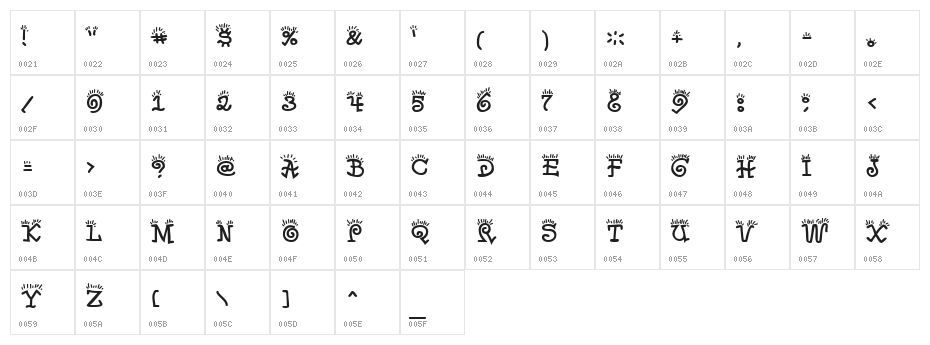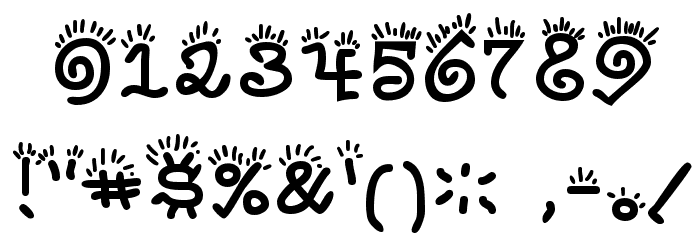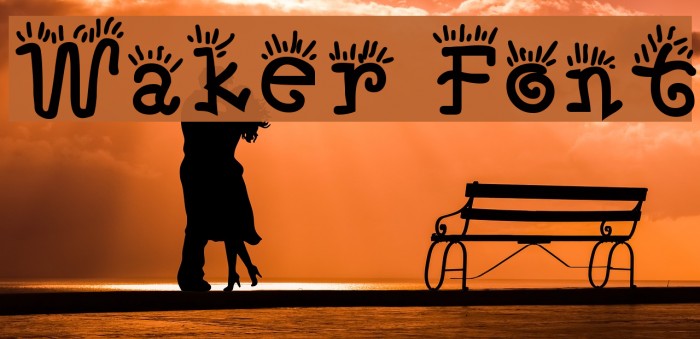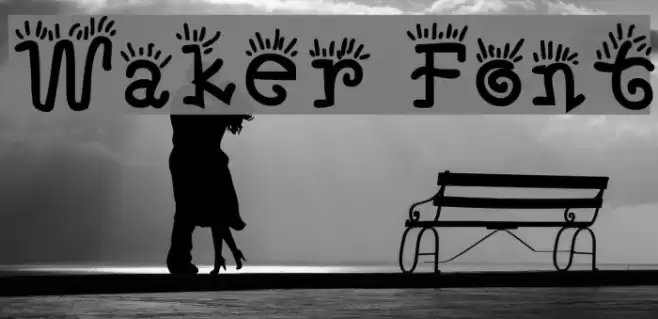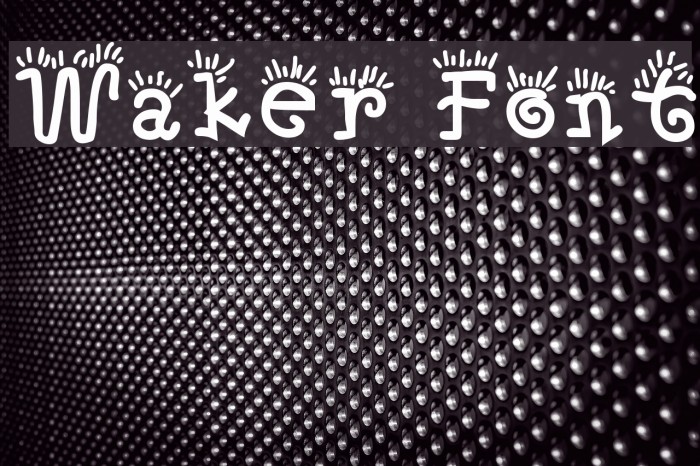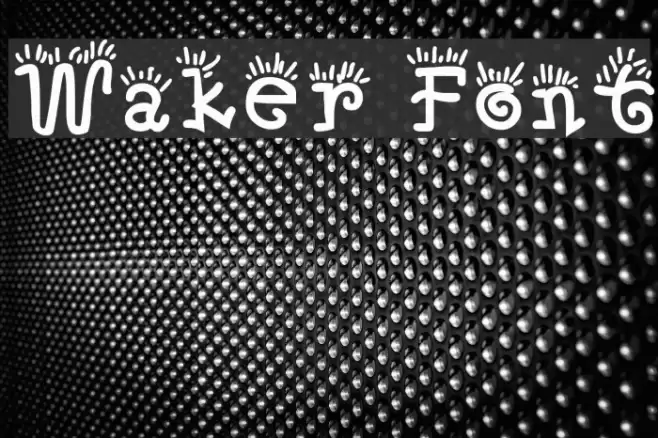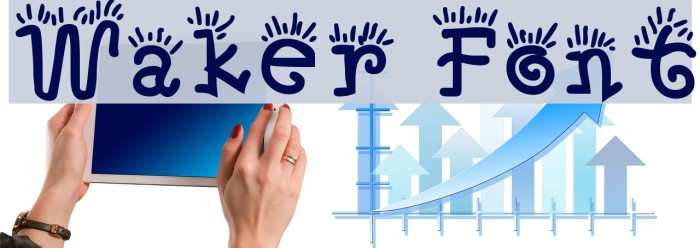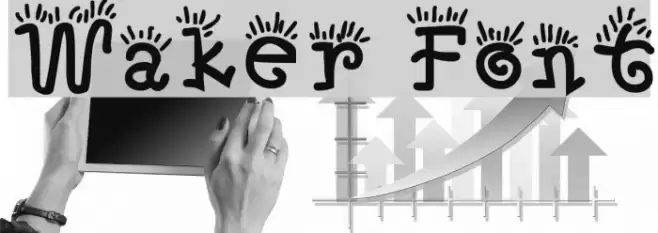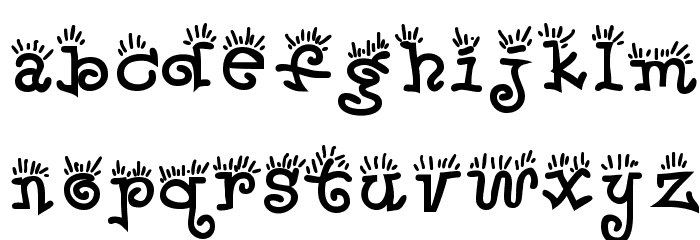
Waker Font
Waker Description
This playful and whimsical font features unique decorative elements resembling eyelashes or sun rays above each character, adding a lively and animated feel. The characters are bold and rounded, with a slight curl or twist in some letters, enhancing its quirky and fun appearance. The font maintains a consistent weight throughout, ensuring readability despite its decorative nature. The numbers and special characters follow the same playful style, making it suitable for creative projects that require a touch of humor and personality.
| Overall Style | Whimsical |
| Proposed Projects | Ideal for children's books, playful branding, party invitations, and creative posters. |